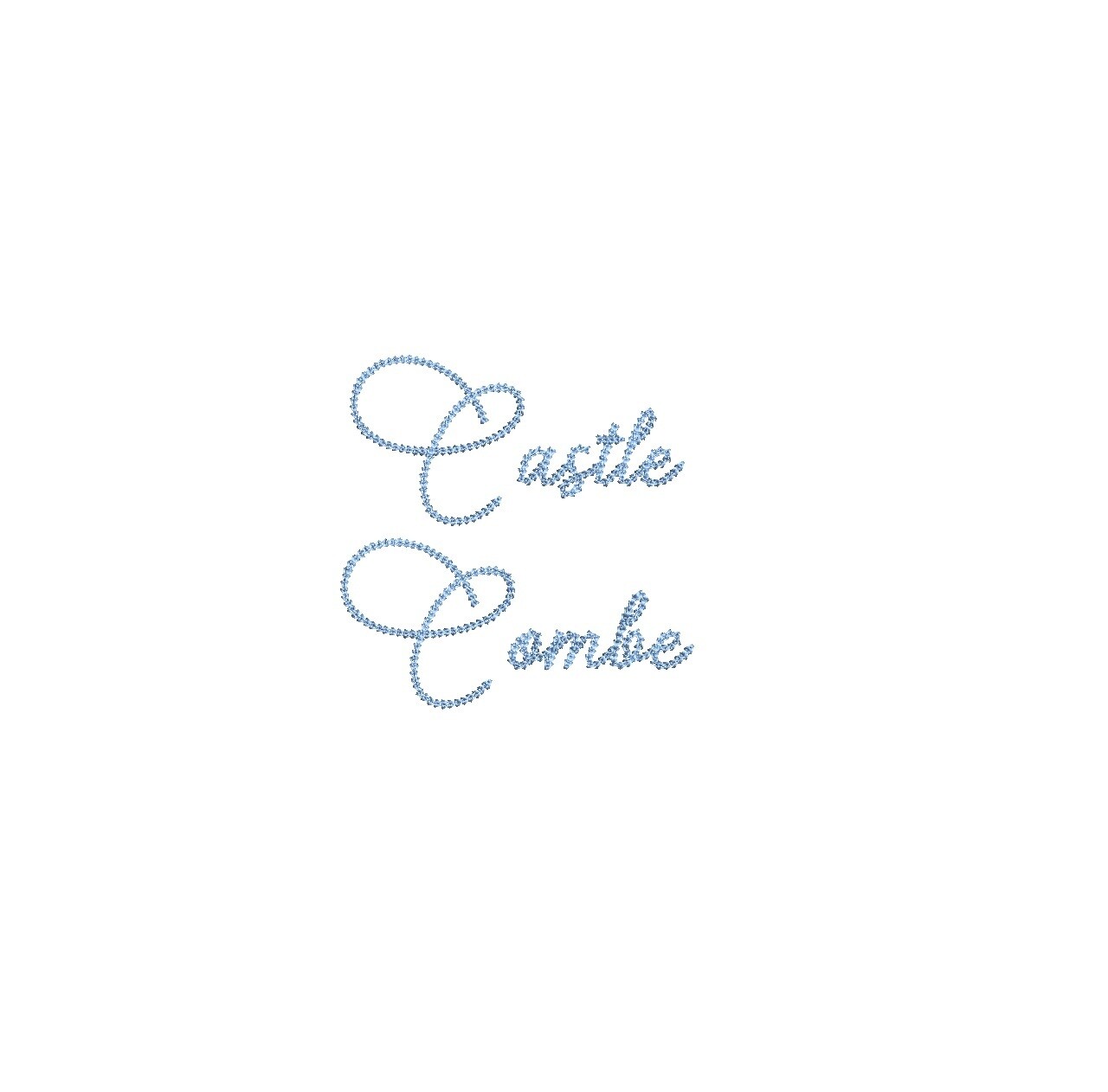
Elevate embroidery with Castle Combe Chain Stitch ESA font. Compatible with Wilcom Studio e4.5.6 and Hatch 3 versions and newer, it exudes elegance in every stitch. Crafted with precision, the font's chain stitch artistry brings depth and allure to each project. Seamlessly integrate for captivating results that stand out. Castle Combe transforms fabric into a canvas of innovation with its versatile charm. Elevate your embroidery game with this seamless blend of technology and artistry. Experience the power of Castle Combe Chain Stitch ESA font to redefine stitching excellence. Upgrade your designs today and make a lasting statement.